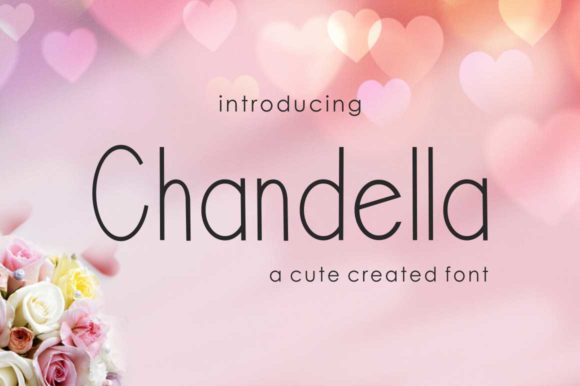
Chandella
About Chandella Font
Chandella is a cute and modern handwritten font. Its natural and unique style makes it incredibly fitting to a large pool of designs.